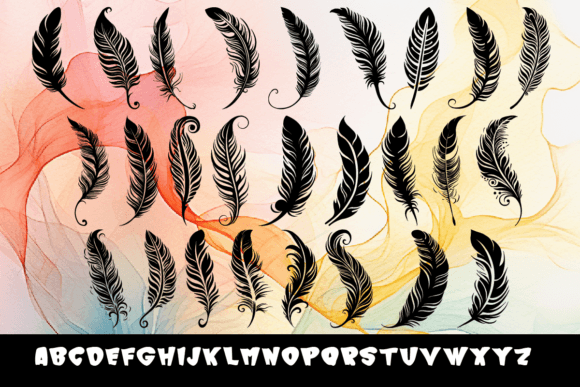
Introducing Aura Feather Dingbats Fonts: Elevate Your Designs with Ethereal Elegance
Are you a designer, crafter, or DIY enthusiast looking for a unique and captivating font to add a touch of elegance to your projects? Look no further than the Aura Feather Dingbats Fonts! This digital product offers a stunning set of 26 characters from A to Z, each adorned with ethereal and enchanting feather designs that will leave your audience mesmerized.
Unleash Your Creativity with Aura Feather Dingbats Fonts
The Aura Feather Dingbats Fonts are designed to inspire creativity and take your designs to new heights. With its delicate and intricate feather patterns, this font is perfect for a wide range of projects, from wedding invitations and party decorations to branding and marketing materials. Whether you’re a seasoned designer or a crafty DIY enthusiast, this font is sure to become a staple in your collection.
Key Features of Aura Feather Dingbats Fonts
• 26 Unique Characters: Each character from A to Z is carefully designed with intricate feather patterns, offering a diverse range of options for your designs.
• Ethereal and Enchanting Designs: Add a touch of magic to your projects with the delicate and captivating feather designs.
The Aura Feather Dingbats Fonts offer endless design possibilities, limited only by your imagination. Here are a few ideas to get you started:
• Wedding Invitations: Add a touch of elegance and romance to your wedding invitations with the Aura Feather Dingbats Fonts.
• Party Decorations: Create stunning party decorations, including banners, garlands, and gift tags, with the Aura Feather Dingbats Fonts.
• Branding and Marketing: Use the Aura Feather Dingbats Fonts to create unique and captivating branding and marketing materials, such as logos, business cards, and brochures.
• DIY Crafts: Add a personal touch to your DIY crafts, including scrapbooking, card making, and jewelry design, with the Aura Feather Dingbats Fonts.
Tips for Using Aura Feather Dingbats Fonts
To get the most out of the Aura Feather Dingbats Fonts, here are a few tips:
• Experiment with Colors: Try pairing the Aura Feather Dingbats Fonts with different colors and textures to create unique and eye-catching designs.
• Mix and Match: Combine the Aura Feather Dingbats Fonts with other fonts and design elements to create visually appealing and dynamic designs.
• Pay Attention to Details: Take the time to experiment with different font sizes, styles, and arrangements to ensure that your design is balanced and visually appealing.
Font Name Aura Feather Font
Author MOMAT THIRTYONE